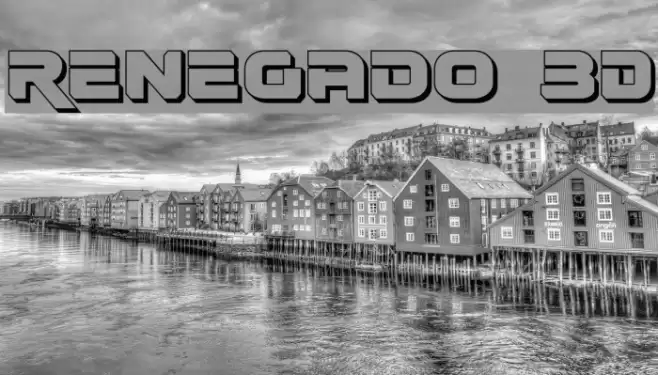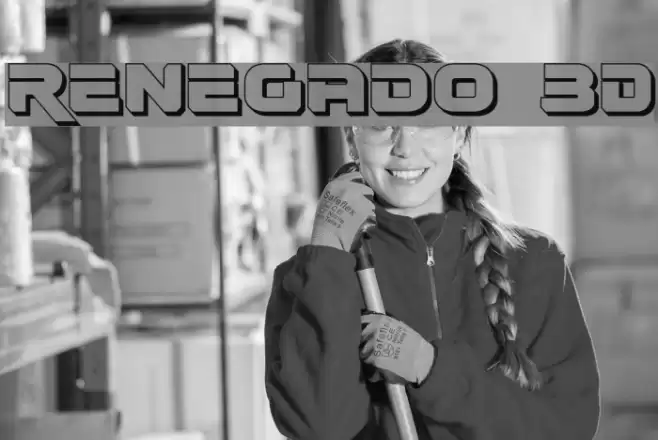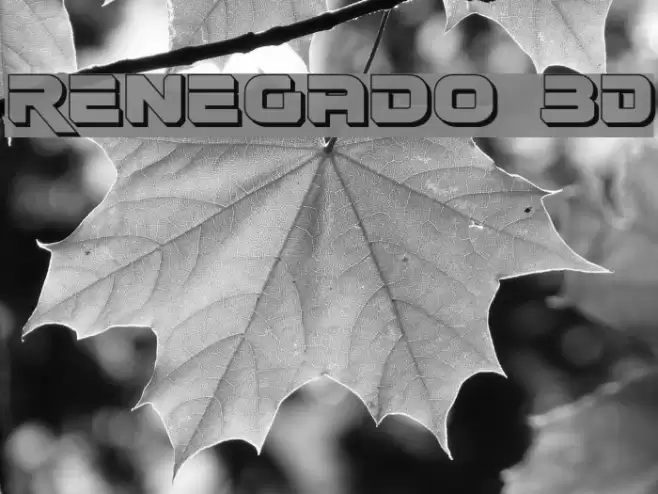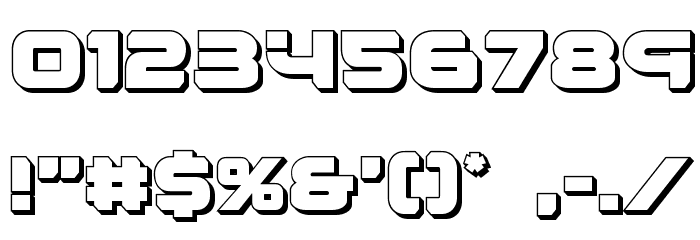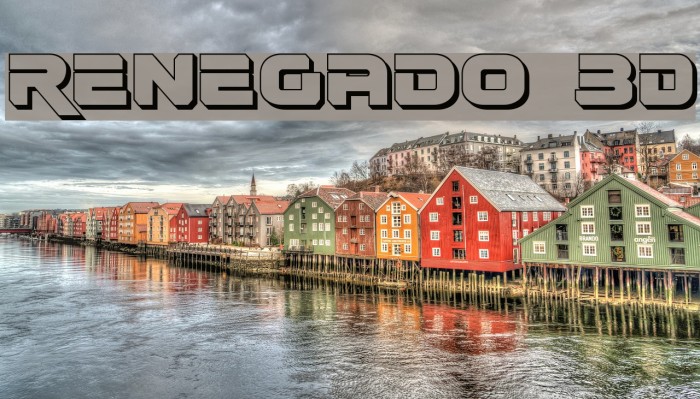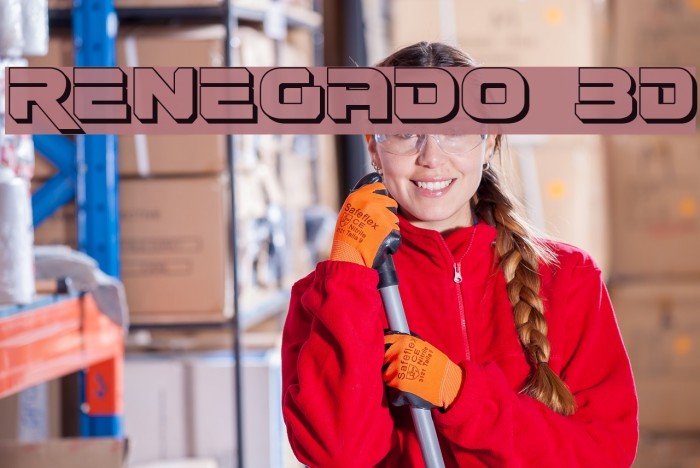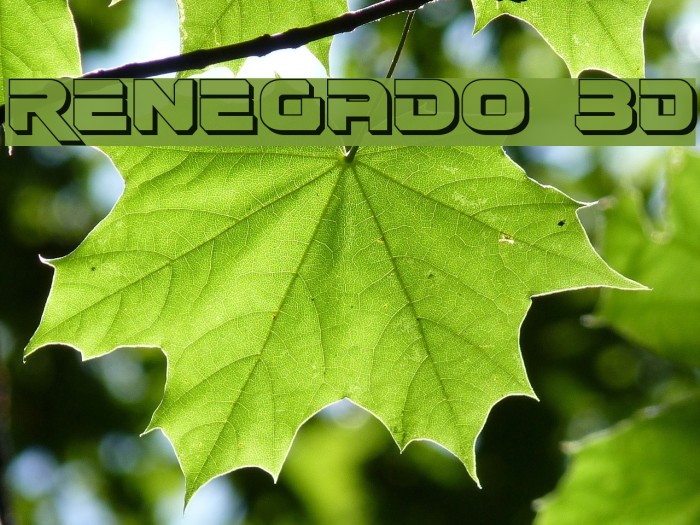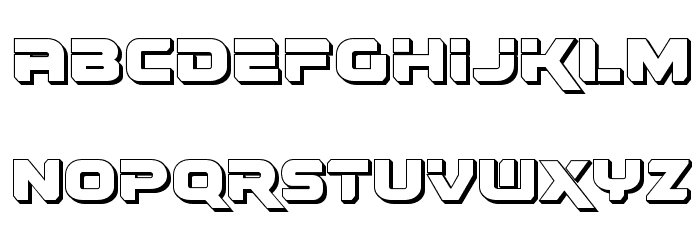
Renegado 3D Font
Renegado 3D Description
This font features a bold, three-dimensional design with a futuristic and geometric aesthetic. The characters are outlined with a thick border, creating a striking visual effect that gives the impression of depth and solidity. The angular and blocky shapes of the letters contribute to a modern and industrial feel, making it stand out in any design. The font maintains consistent proportions and spacing, ensuring readability while emphasizing its unique style. The numbers and special characters are designed to match the bold and structured appearance of the letters, providing a cohesive look across all elements.
A bold, 3D geometric font with a futuristic and industrial style from Uncategorized fonts.
- Proposed Projects: Ideal for sci-fi themed projects, video game titles, posters, and branding that requires a modern and edgy look.